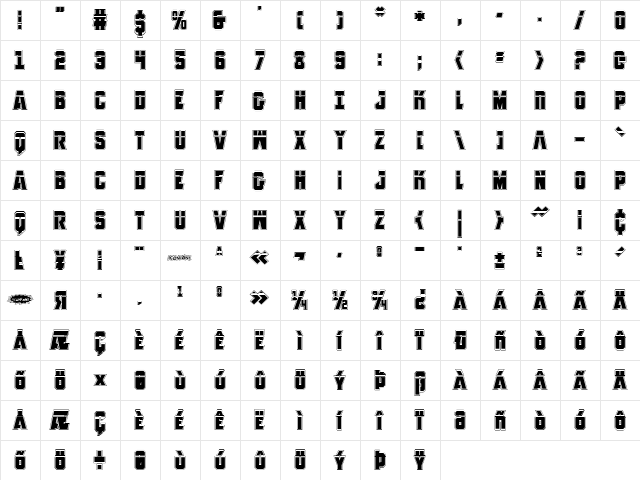
Anitlles Laser Academy Regular
Design Context for Anitlles Laser Academy Typeface
Anitlles Laser Academy is a composed and adaptable typeface that performs quietly and consistently across a wide range of design contexts.